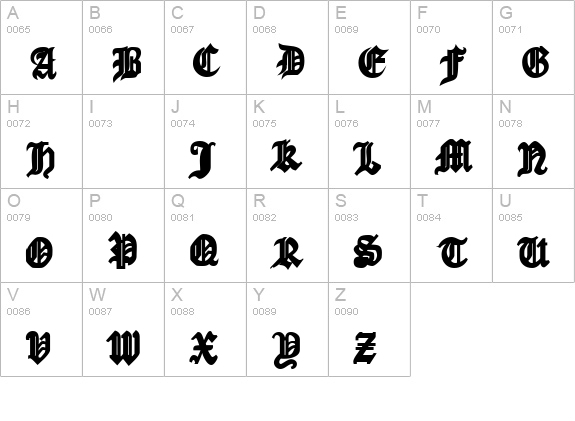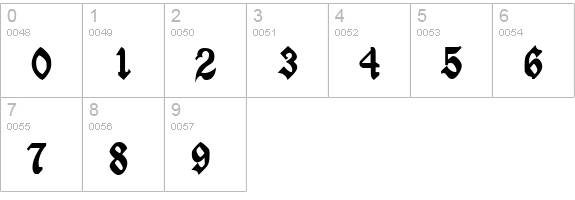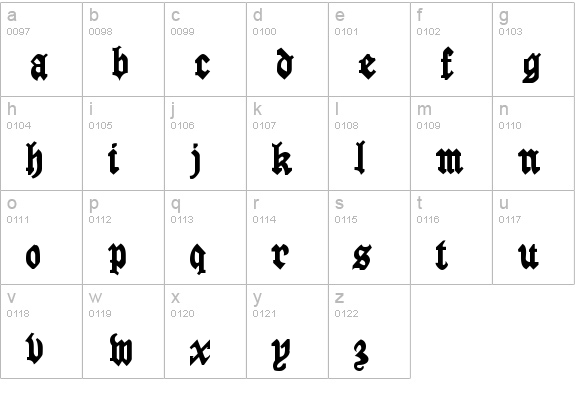
AngloSSK Bold is a strong, high-contrast variant in the AngloSSK typeface family \xE2\x80\x94 well suited to headlines, attention-grabbing titles, and strong calls-to-action.
AngloSSK Bold font is a striking and versatile typeface that exudes confidence and modernity. With its bold and sturdy letterforms, AngloSSK Bold commands attention and is perfect for making a statement in any design project. Whether you are creating posters, logos, or branding materials, this font will add a touch of bold elegance to your work. The best part? AngloSSK Bold font is available for free download at FontsMarket.com. Simply head over to the website and grab this stylish font to enhance your creative projects. With its sleek design and impactful presence, AngloSSK Bold is sure to elevate your designs to the next level. Don't miss out on this amazing opportunity to download this font for free and take your projects to new heights.